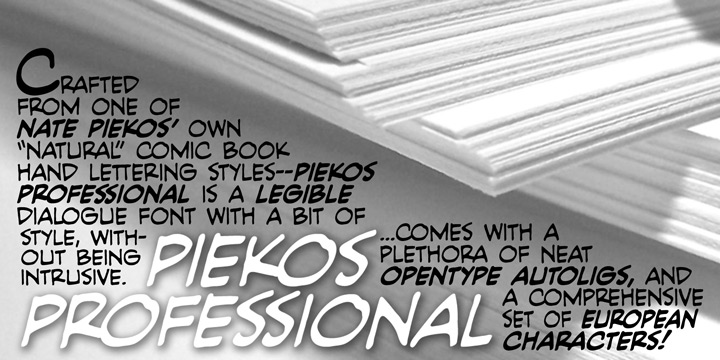
Modeled on one of comic letterer, Nate Piekos' hand lettering styles, Piekos Professional is a simple, legible, comic book font with a bit of flair.
Includes Regular, Italic and Bold, with a compliment of European characters. The OpenType version of this font family also comes with Autoligatures to swap out any two identical letters that appear next to one another for a pair that is slightly different. This creates a more hand lettered look.